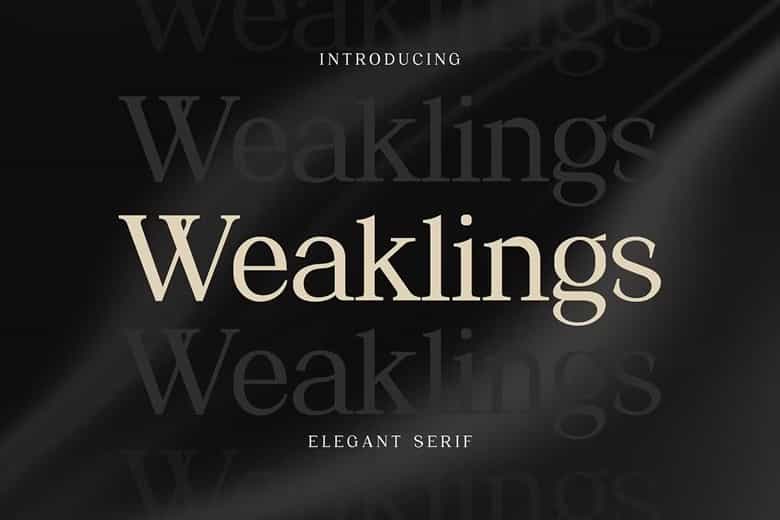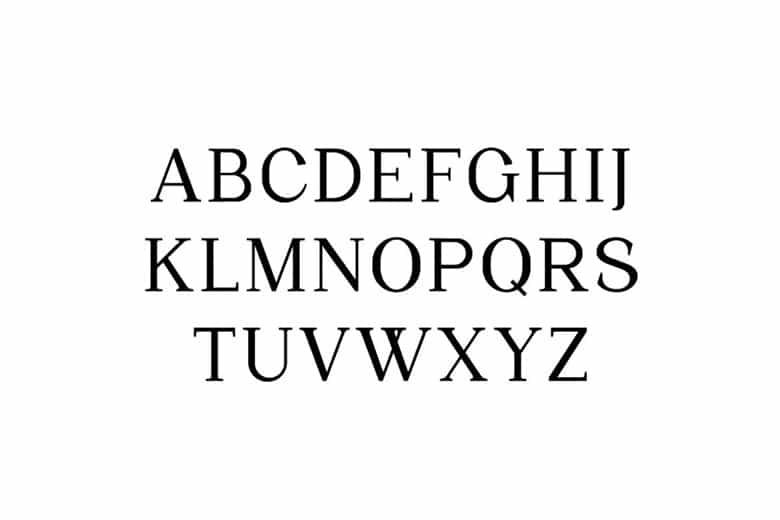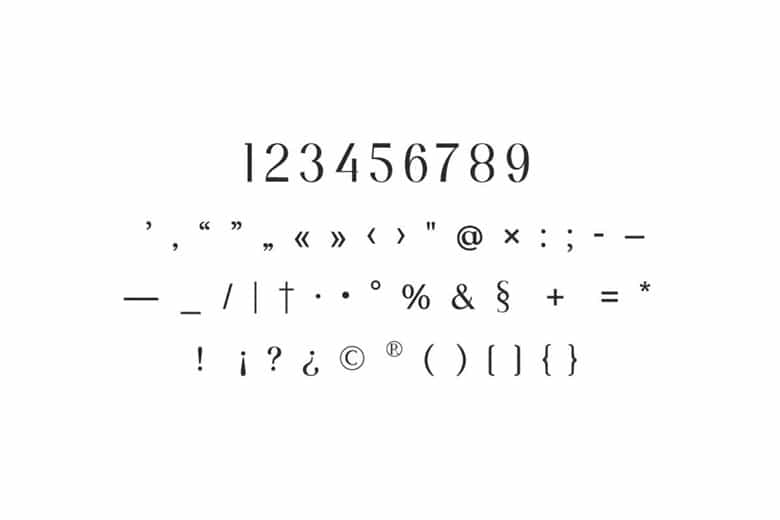
Weaklings is a new serif font. The modern serif font looks so beautiful, classy, elegant and stylish. Weaklings is ideal for design projects that require professional look; these include editorial projects, books or brands that have to convey professionalism.